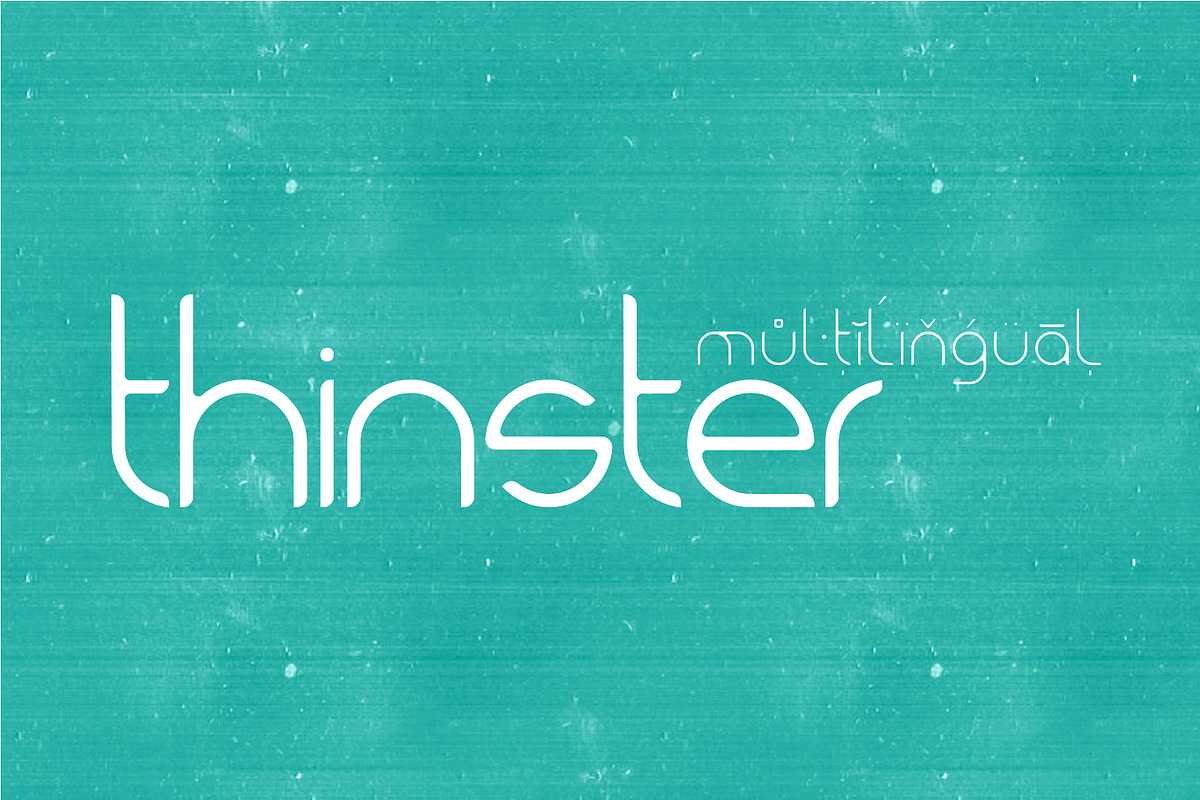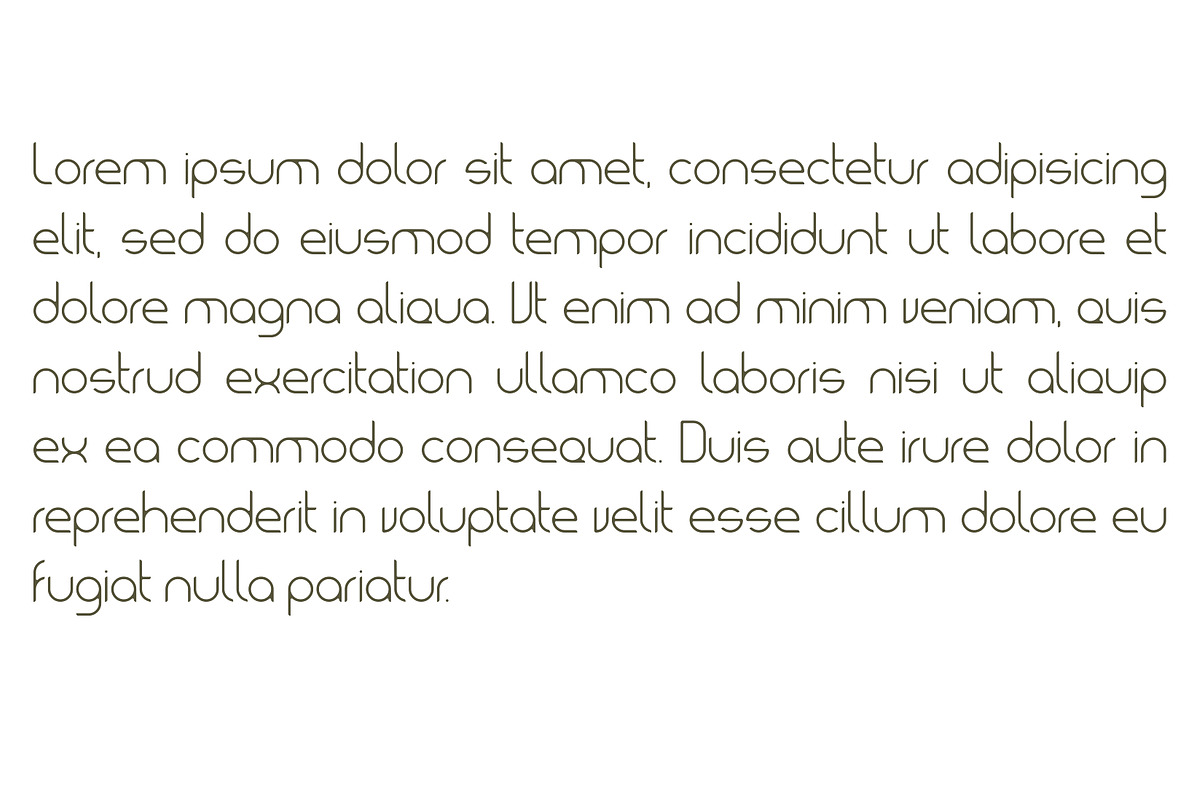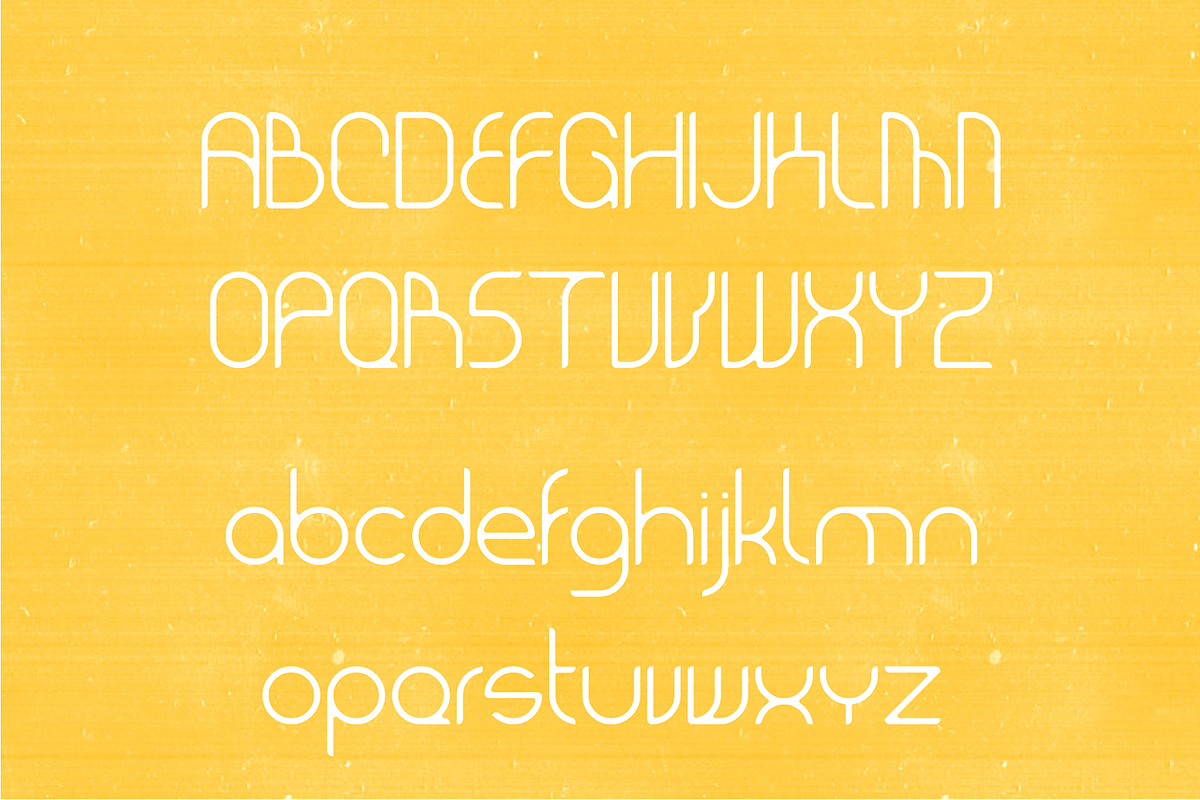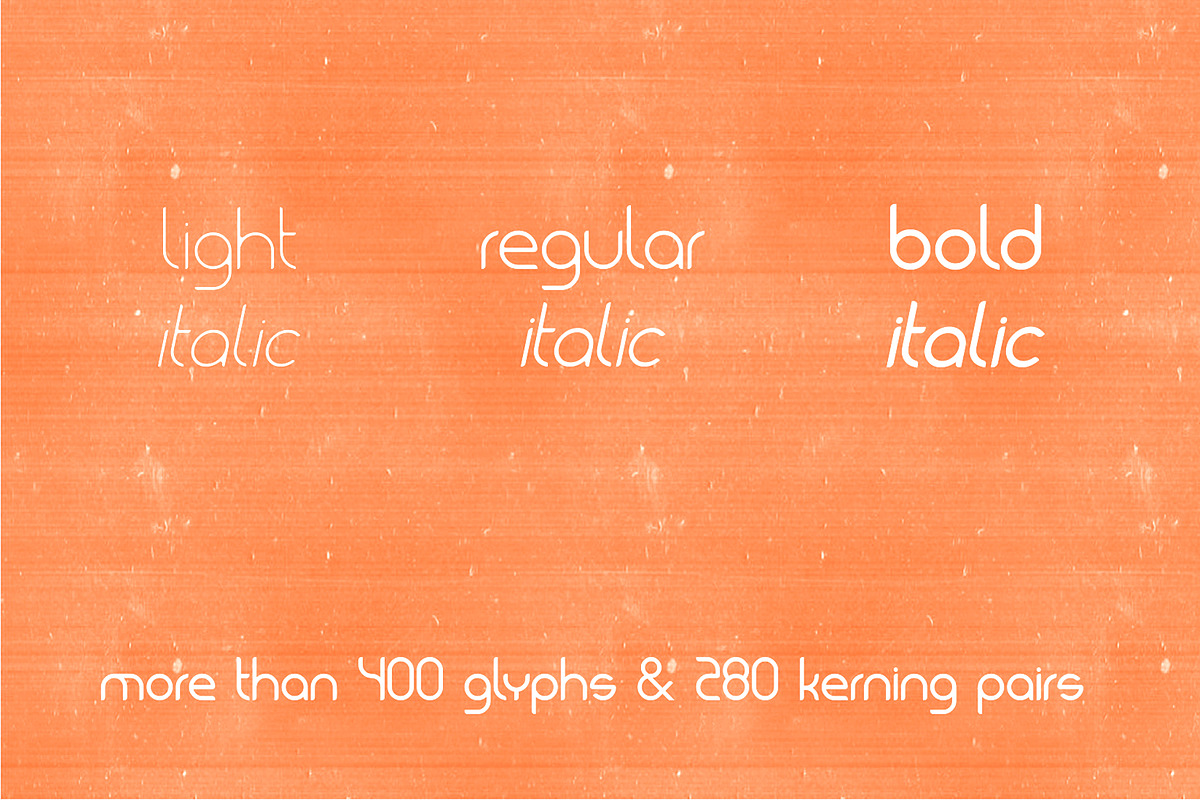
Thinster Typeface
Thinster Typeface by Monogram is a font selected for branding, posters, packaging, typography.
- It comes in regular and bold weights with 412 glyphs and 288 kernings.
- Thinster Light
- Thinster Light Italic
- Thinster Regular
- Thinster Italic
- Thinster Bold
- Thinster Bold Italic
Why Thinster Typeface is worth a look
Thinster Typeface by Monogram fits naturally into Branding, posters, packaging, typography.